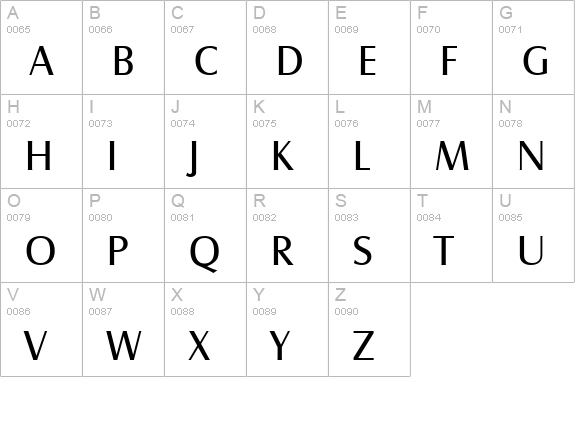
SalzburgSerial-Regular is the standard, neutral variant in the SalzburgSerial typeface family \xE2\x80\x94 well suited to general body text, paragraphs, and standard typographic work.
SalzburgSerial-Regular is a versatile and modern font that exudes elegance and sophistication. With its clean lines and balanced proportions, this typeface is perfect for a wide range of design projects, from branding to editorial design. The timeless appeal of SalzburgSerial-Regular makes it a go-to choice for designers looking to make a statement with their typography. One of the best things about SalzburgSerial-Regular is that it is available for free download at FontsMarket.com. This means that you can easily access this high-quality font without any cost, making it a valuable addition to your font library. Whether you're working on a personal project or a professional design assignment, SalzburgSerial-Regular offers the perfect blend of style and functionality. Download it today and elevate your designs with this exceptional font.